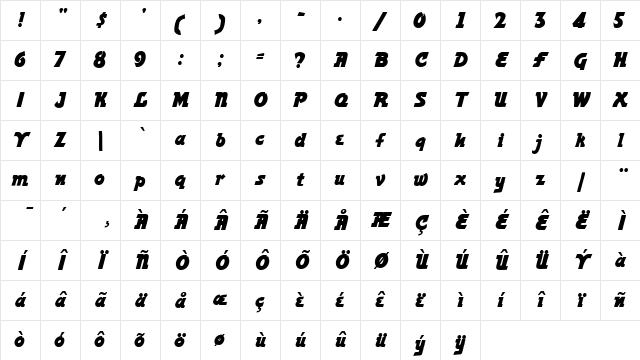
Power Regular Free Font
Power Regular
Foundry: CAT Fonts
Power Family
Power Regular
Design Context for Power
Power brings high-energy athletic personality to the page - its confident, muscular forms are built for impact.
Pro Tip: Use Power in all-caps headlines where its athletic energy can fully express itself. Pair with a solid, simple sans for supporting text.